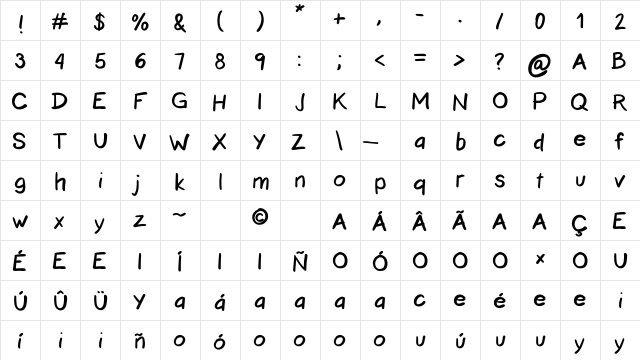
Artritris Regular
| Designer | Cesar Pena |
Design Context for Artritris Typeface
Artritris takes a measured approach to typography — its balanced proportions and neutral character make it a reliable workhorse for both digital and print work.